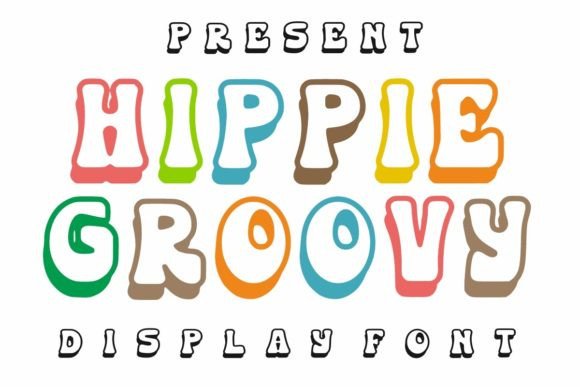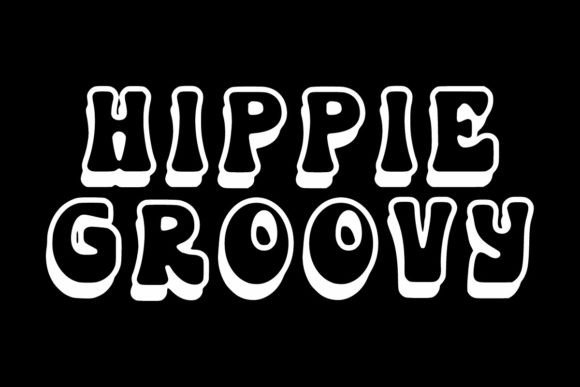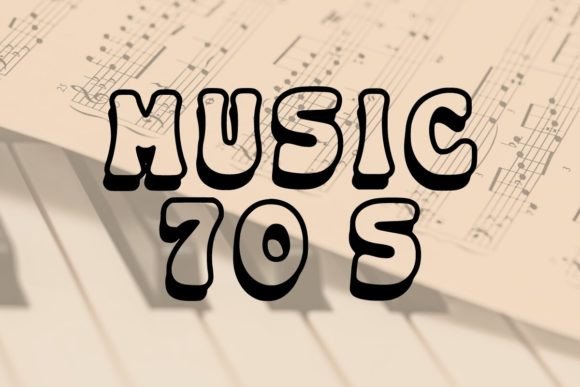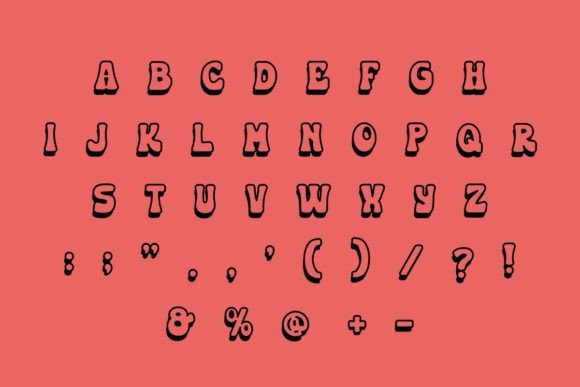
Hippie Groovy Font
About the Hippie Groovy Font
Discover the charm of Hippie Groovy Font. This font is a perfect blend of modern aesthetics and classic appeal. Hippie Groovy is a retro font and bold-looking display font. It features a dynamic effect and a unique charm. It is perfect for headlines, sporting events, automotive posters, school posters, text effects, templates, logos, or monogrammed designs.
Its bold, playful energy makes it ideal for projects needing a retro-inspired, eye-catching aesthetic. Think album art, vintage-themed branding, or posters promoting events with a 60s/70s vibe. Avoid using it for body text or lengthy passages; its strong character overwhelms smaller sizes and continuous reading.
Hippie Groovy pairs well with clean sans-serif fonts like Futura or Helvetica for a balanced contrast, or a more delicate script like Playfair Display for a touch of vintage elegance. A geometric sans-serif would also create a striking juxtaposition. For a more cohesive retro feel, consider pairing it with a similarly styled serif font.
The font’s core personality is undeniably bold and rebellious, yet retains a friendly, approachable quality. Brands targeting younger audiences, especially those with a connection to counter-culture aesthetics or a focus on music and entertainment, will find it particularly effective.
Hippie Groovy Font Usage Examples
Hippie Groovy Font Example